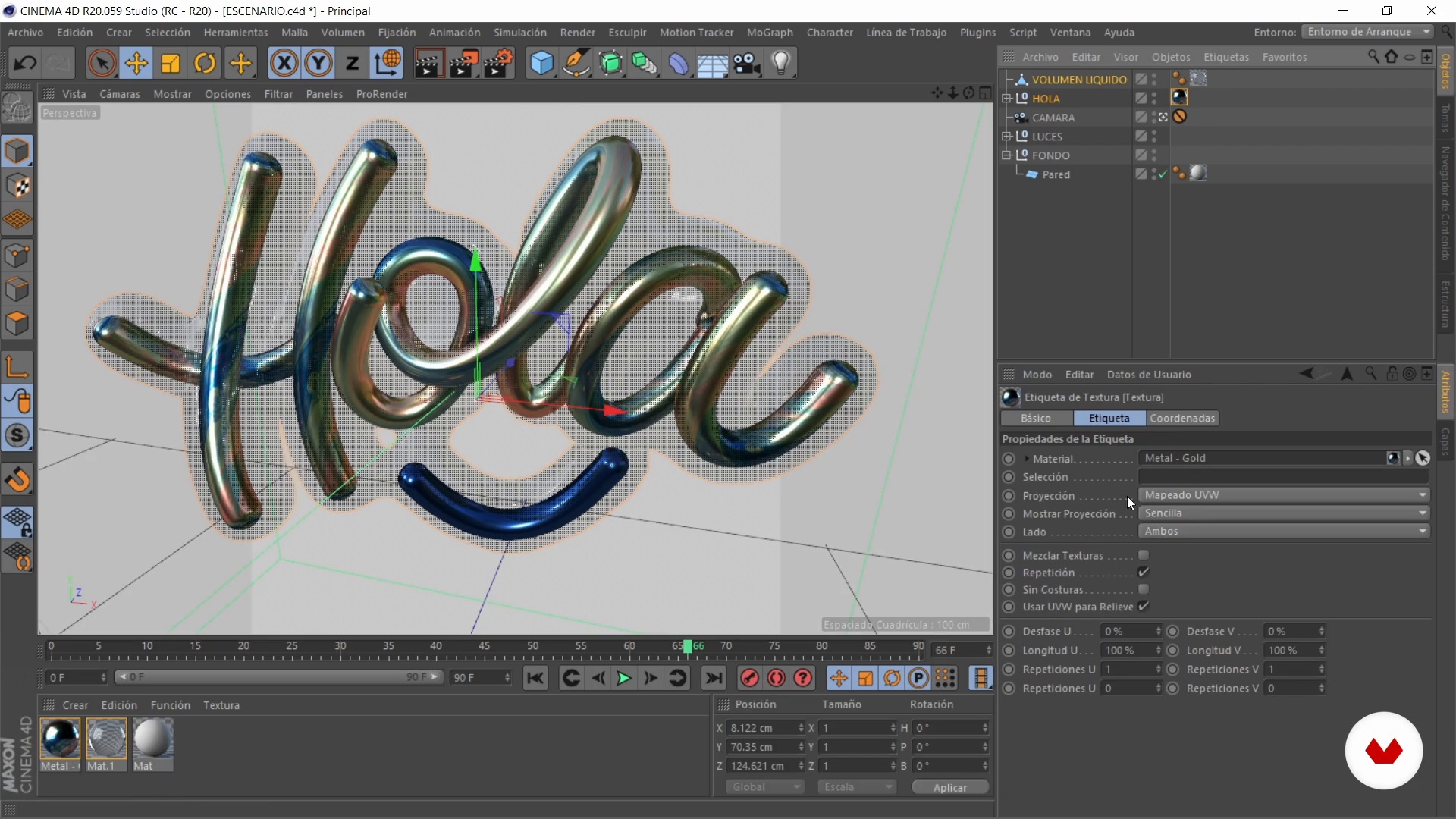
3D Font Design with a Metallic Finish
Render of the first project
About the video: Render of the first project
“In this lesson I will show you how to render the first project. To do this, we will use the document we have ready with all the settings.”
In this video lesson Dawlym Murillo Jaramillo addresses the topic: Render of the first project, which is part of the Domestika online course: 3D Font Design with a Metallic Finish. Learn three-dimensional modeling techniques in Cinema 4D to add a realistic and vibrant touch to your lettering.
“In this lesson we are going to work with textures, the colors and let's see how the lights work so that our project looks much better. Let's work on the render. We arrived at the funniest part of our course and is to use the materials, the textures, give color to the models we made and for this I have ready a scenario that will serve us to render the three projects that we did. So without further ado we are going to copy it and paste it on our stage. In this case I see two documents, when you have several documents in Cinema 4D you can go to window and in The lower part shows all the docume...”